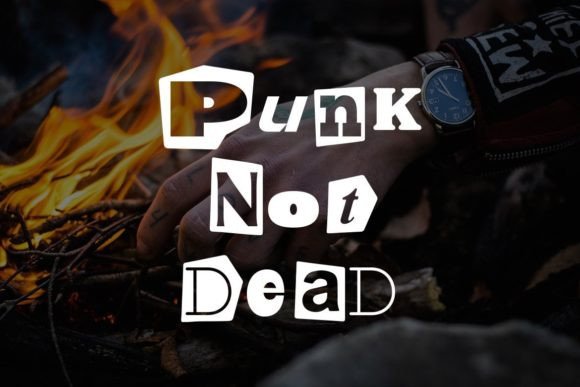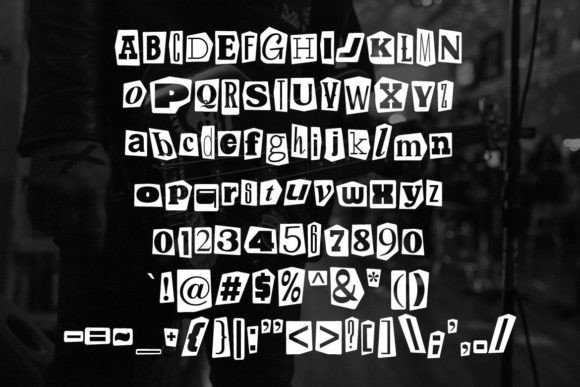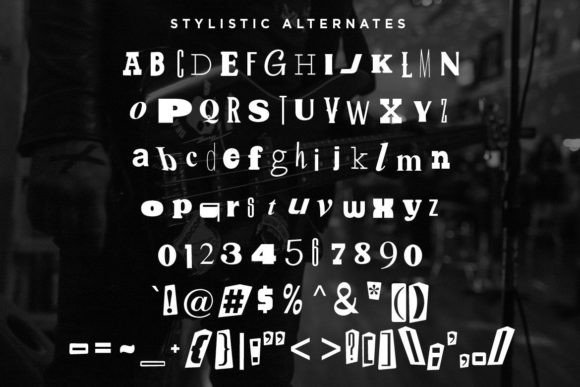
Bronxos Font: A Stylish and Versatile Typeface Inspired by 90s Music Posters
Are you a designer or crafter looking for a unique and eye-catching font to elevate your urban city designs? Look no further than Bronxos Font, a stylish and versatile typeface inspired by the classic music posters of the 1990s. In this article, we’ll dive into the features and benefits of Bronxos Font, and explore how it can be used to create stunning designs.
The Inspiration Behind Bronxos Font
Bronxos Font is a creative interpretation of the classic music posters from the 1990s, characterized by their distinctive collaged lettering style. The font’s creator has carefully crafted each letter by combining cut-out letters from magazines and newspapers, resulting in a unique and stylized typeface that exudes a sense of urban grit and nostalgia.
Key Features of Bronxos Font
- Inspired by 90s music posters: Bronxos Font is deeply rooted in the aesthetic of 1990s music posters, making it perfect for designs that require a retro or vintage vibe.
- Collaged lettering style: The font’s letters are crafted from cut-out magazine and newspaper letters, giving it a distinctive and eye-catching appearance.
- Stylistic alternates: Each letter in Bronxos Font comes with stylistic alternates, allowing you to experiment with different variations and create unique designs.
- Urban city design: Bronxos Font is specifically designed with urban city designs in mind, making it ideal for posters, logos, branding, icons, ads, brochures, flyers, and more.
Uses for Bronxos Font
Bronxos Font is an incredibly versatile typeface that can be used in a wide range of design projects, including:
- Poster design: Create eye-catching posters for concerts, festivals, or events with Bronxos Font’s bold and stylized lettering.
- Logo design: Use Bronxos Font to craft unique and memorable logos for brands, businesses, or organizations.
- Branding and identity: Develop a cohesive brand identity with Bronxos Font, perfect for urban city-based businesses or organizations.
- Icon design: Create custom icons using Bronxos Font’s stylized letters and shapes.
- Advertising: Use Bronxos Font to create attention-grabbing ads for print or digital media.
- Brochures and flyers: Add a touch of urban style to your brochures and flyers with Bronxos Font.
Tips for Using Bronxos Font
To get the most out of Bronxos Font, here are some tips to keep in mind:
- Experiment with stylistic alternates: Take advantage of the font’s stylistic alternates to create unique and varied designs.
- Mix and match with other fonts: Combine Bronxos Font with other fonts to create visually interesting and dynamic designs.
- Play with color and texture: Add depth and interest to your designs by experimenting with different colors and textures.
Bronxos Font is a stylish and versatile typeface that is sure to elevate your urban city designs. With its unique collaged lettering style, stylistic alternates, and wide range of uses, Bronxos Font is an excellent choice for designers and crafters looking to add a touch of nostalgia and grit to their work. Whether you’re designing posters, logos, or branding materials, Bronxos Font is the perfect choice for creating eye-catching and memorable designs.